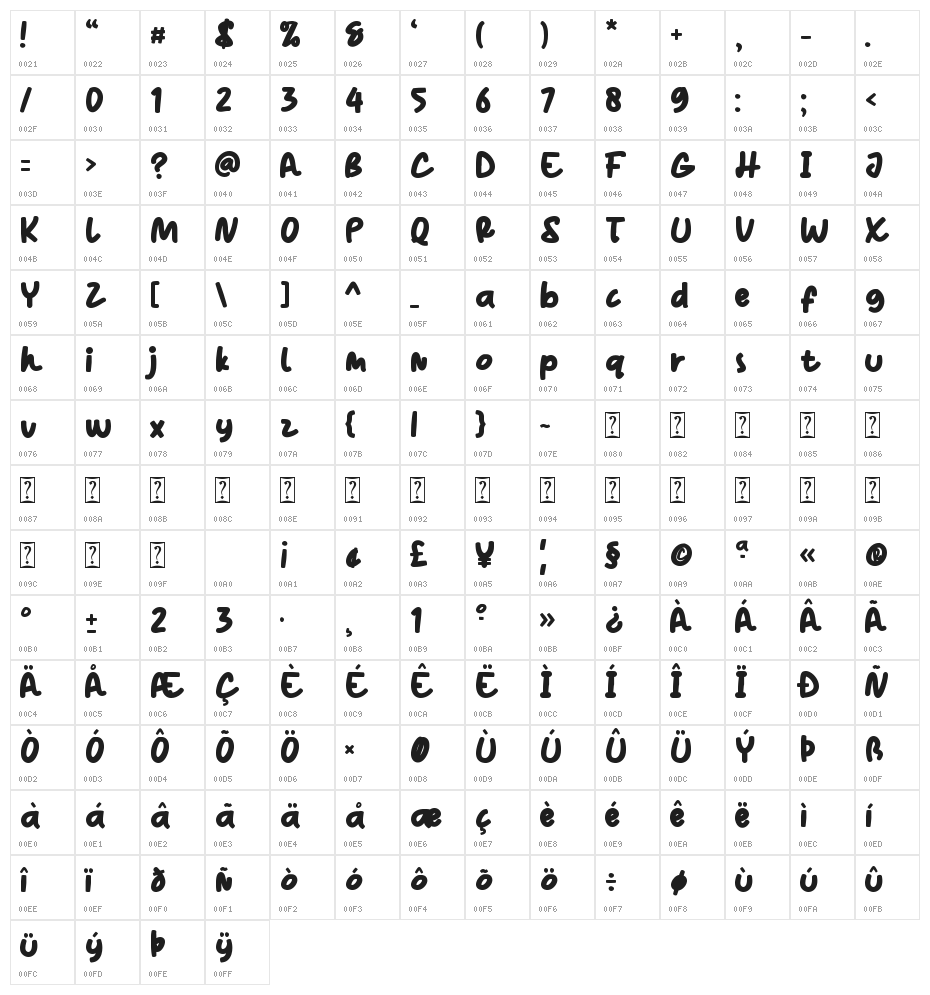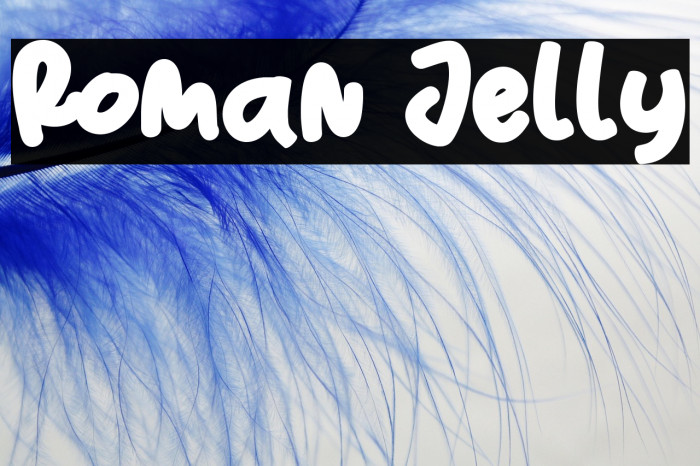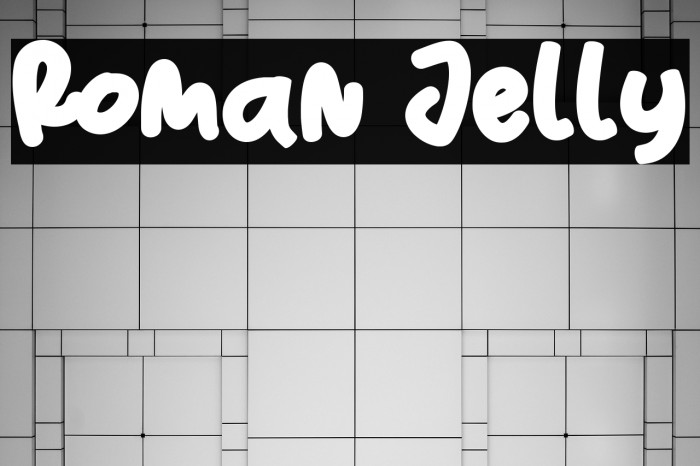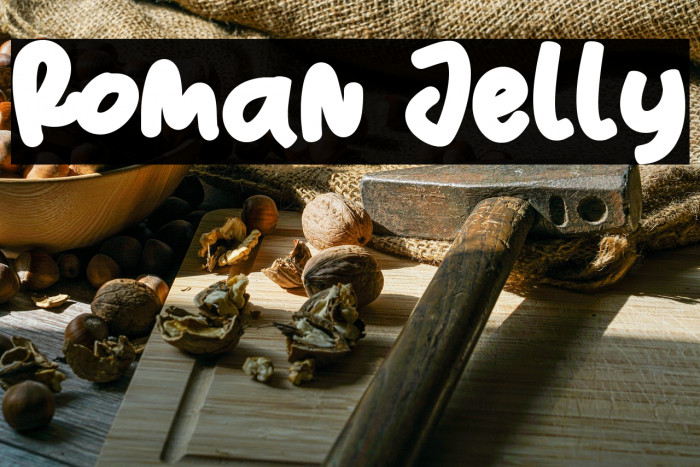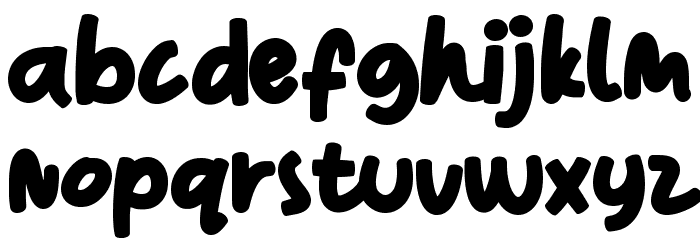
Roman Jelly Font
Roman Jelly Description
This playful and bold font features a hand-drawn, bubbly style that exudes a sense of fun and creativity. The characters are rounded and thick, giving them a substantial presence on the page. The uppercase and lowercase letters maintain a consistent style, with smooth curves and a slightly irregular baseline that adds to the whimsical feel. Numbers and special characters are equally bold and expressive, making them stand out. The overall design is informal and friendly, perfect for projects that require a touch of personality and charm.
| Proposed Projects | Ideal for children's books, playful branding, party invitations, and creative posters. |